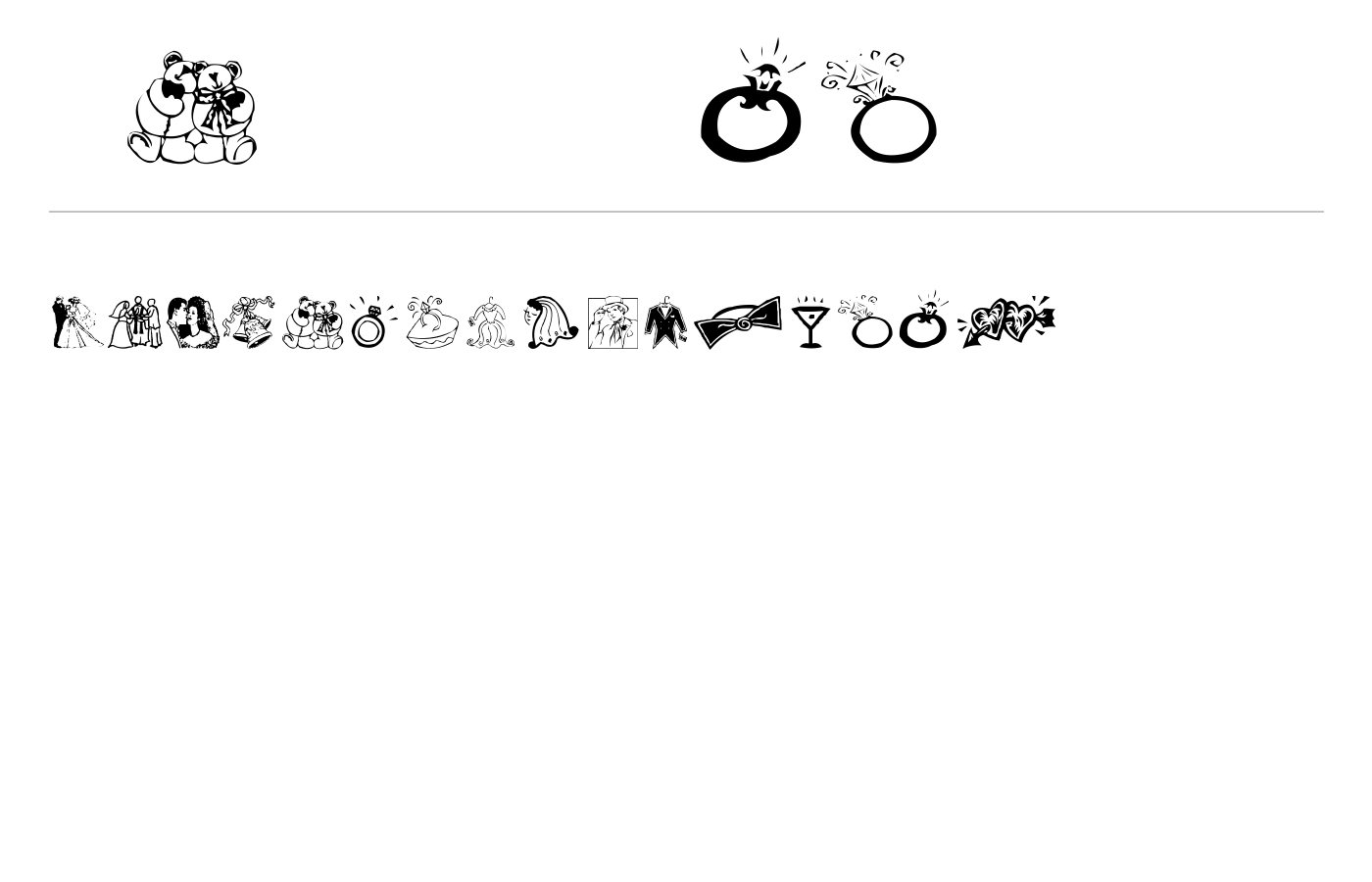
AEZ Wedding Dings is a playful dingbat font featuring charming, detailed wedding-themed icons, from rings and bouquets to brides and grooms. Perfect for invitations, event decor, and romantic branding, this font adds a whimsical, heartfelt touch without using traditional letters, making it ideal for creative designs centered on love and celebration.
AEZ wedding dings Font
About AEZ wedding dings Font
| Font family | AEZ wedding dings Font |
| Designer | Adult Ramblings - Anastacia E. Zittel |